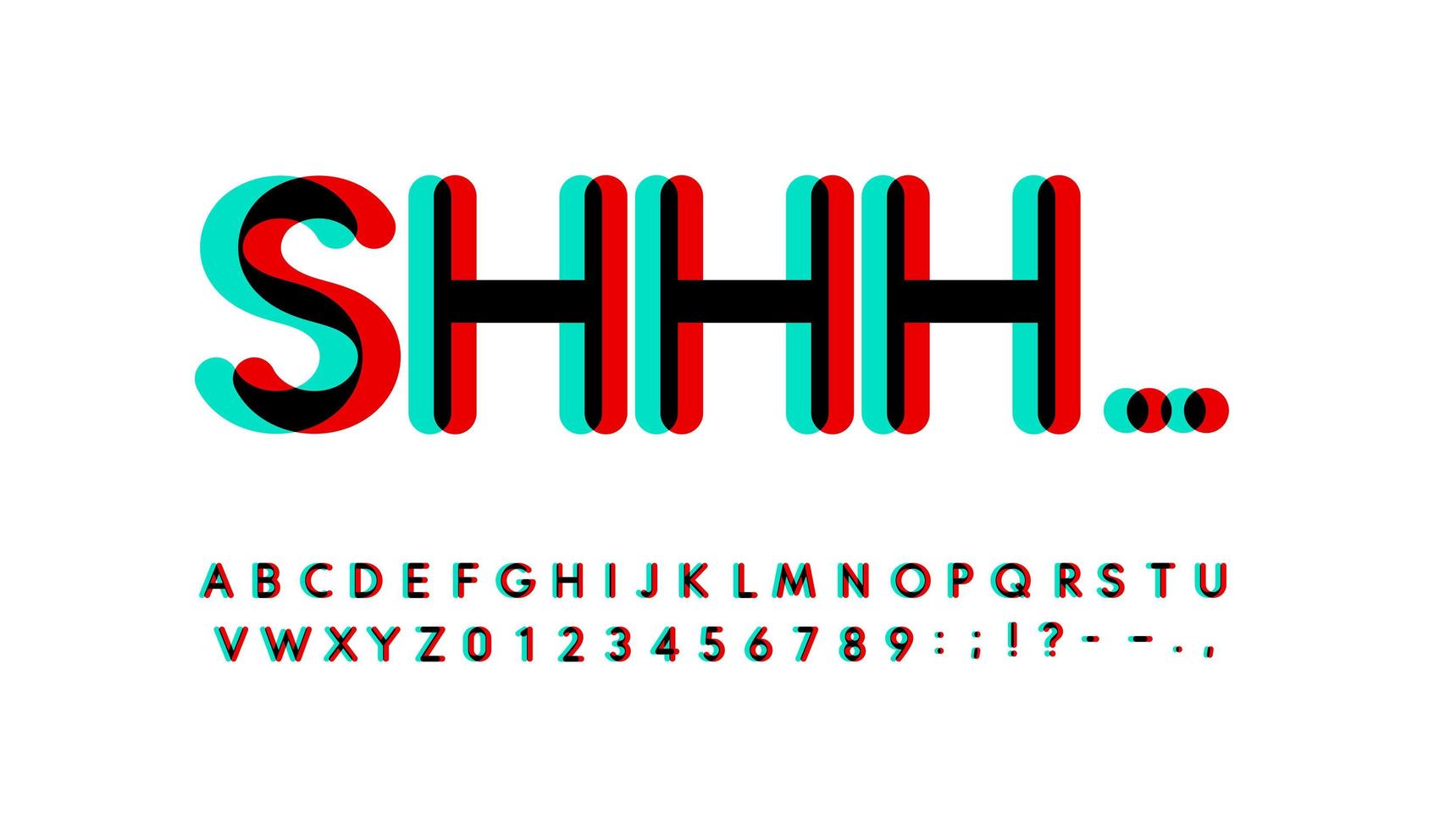
Overprint letters and numbers set. Glowing turquoise and red spectrum effect style vector latin alphabet. Font for digital events, promotions, logos, banner, monogram and poster. Typography design. Pro Vector